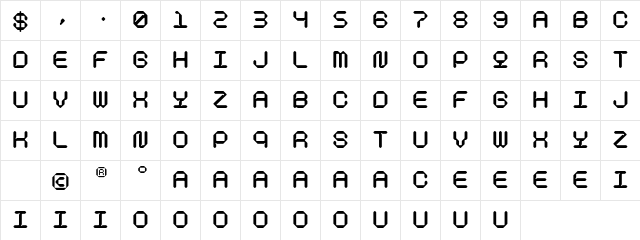
Bleu Feelin Trial Regular
Complete Bleu Feelin Trial Regular glyph index. Displaying only characters natively supported by Bleu Feelin Trial Regular font.
Design Context for Bleu Feelin Trial
Bleu Feelin Trial is a composed and adaptable typeface that performs quietly and consistently across a wide range of design contexts.